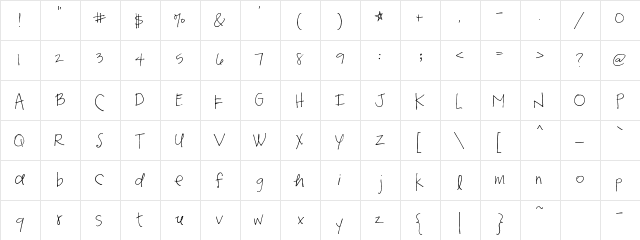
FB Sprinkles FB Sprinkles
Design Context for FB Sprinkles Typeface
FB Sprinkles is a composed and adaptable typeface that performs quietly and consistently across a wide range of design contexts.
Pro Tip: Use FB Sprinkles in both headline and body roles to test its range before committing to a single application.